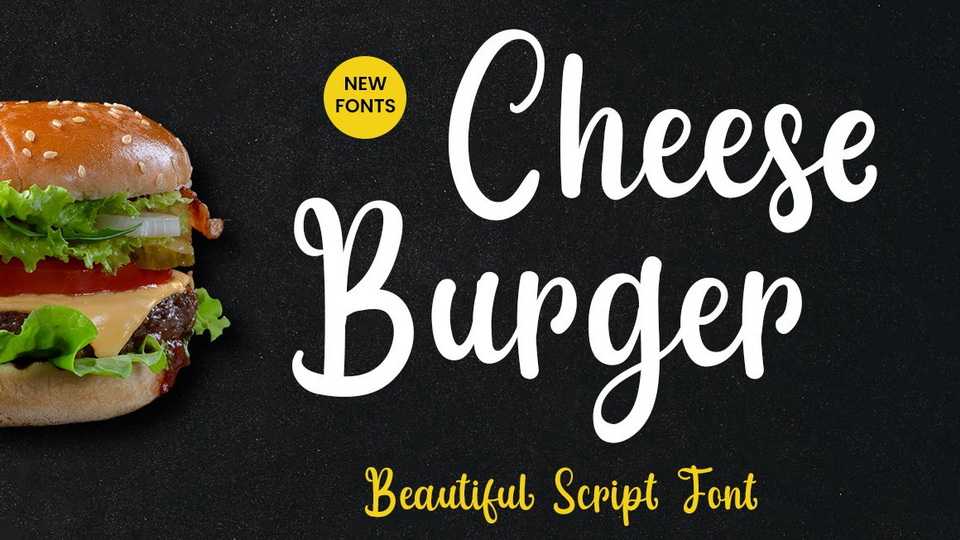
Download Cheese Burger font, a delicate, elegant, and flowing handwritten typeface. Cheese Burger has beautiful and well balanced characters and as a result and matches a wide pool of designs.